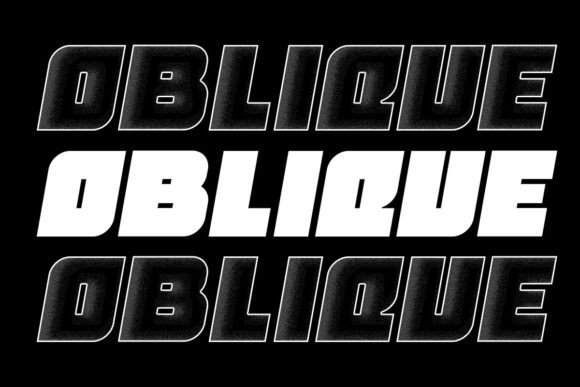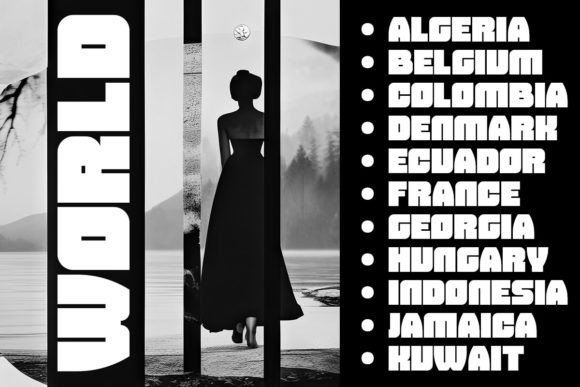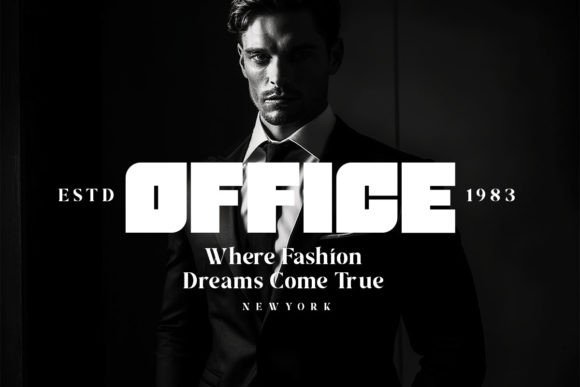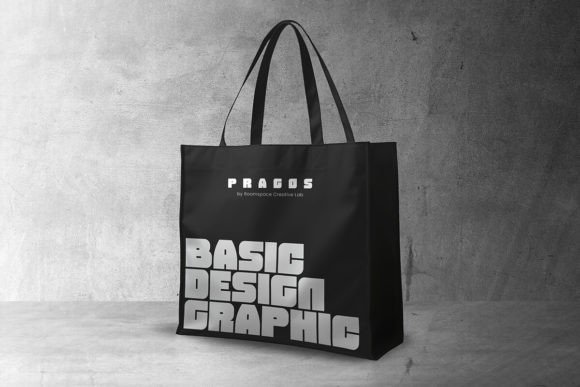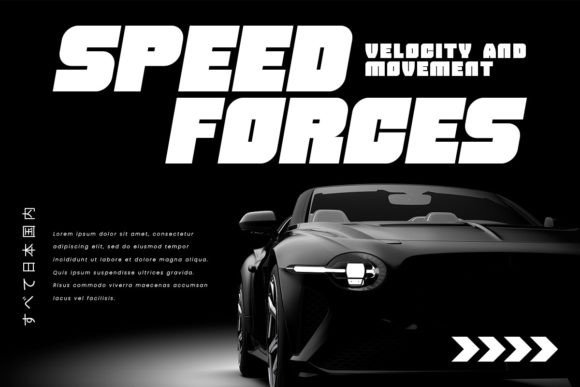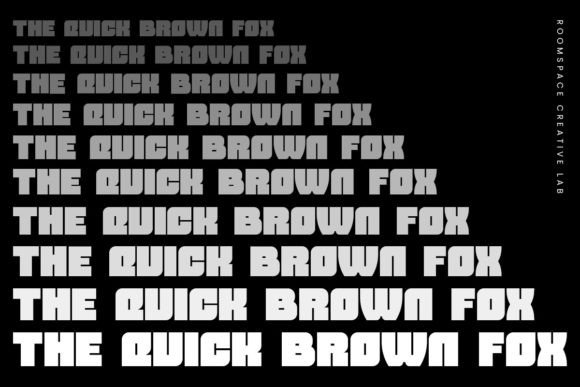
Introduction to Pragos Font
Imagine you’re staring at a blank canvas, eager to bring your creative project to life. You’ve got a vision in mind, but it’s all about choosing the right tools to get started. For designers, a high-quality font can make all the difference in setting the tone and tone of a design. That’s where Pragos Font comes in – a geometric sans-serif font that’s designed to convey a modern and robust impression.
With its unique blend of boxy elements and smooth curves, Pragos Font offers a perfect balance between strength and subtlety. Its bold lines and elegant appearance make it ideal for use in headlines and logos, providing a professional and contemporary vibe that’s hard to resist. Whether you’re working on a free download design or a paid project, Pragos Font is a valuable resource that’s sure to elevate your creative work.
Honest Review: Pragos Font
As a designer, I’m always on the lookout for high-quality design resources to elevate my creative projects. The Pragos Font is one such resource that caught my attention recently. In this review, I’ll share my honest thoughts on what works well and what doesn’t.
What works well: ✨ The Pragos Font is a beautiful, modern sans-serif font that’s perfect for digital design projects. Its clean lines and minimalist aesthetic make it an excellent choice for creating a cohesive brand identity. The font also comes with a transparent background, which is a huge plus for designers who want to customize their designs without any clutter. The free download option is also a huge bonus!
Limitations: ⚠️ While the Pragos Font is a great addition to any designer’s toolkit, it’s not without its limitations. The font family is relatively small, with only a few weights and styles to choose from. This might be a drawback for designers who want a more extensive font library.
Overall impression: I’m really impressed with the Pragos Font. Its high-quality design and transparent background make it a valuable resource for designers working on creative projects. While it may not be the most extensive font family, it’s a great addition to any design toolkit. I’d definitely recommend it to fellow designers looking for a modern, clean font.
- High-quality, modern sans-serif design
- Relatively small font family (only a few weights and styles)